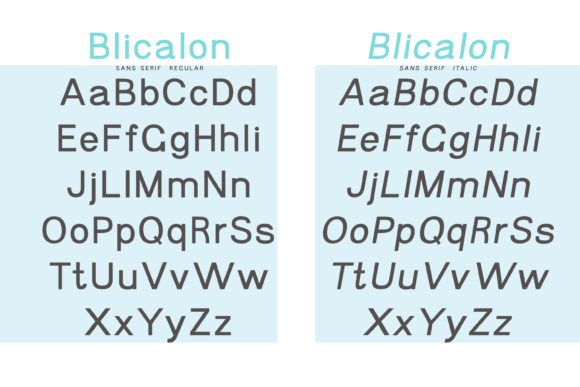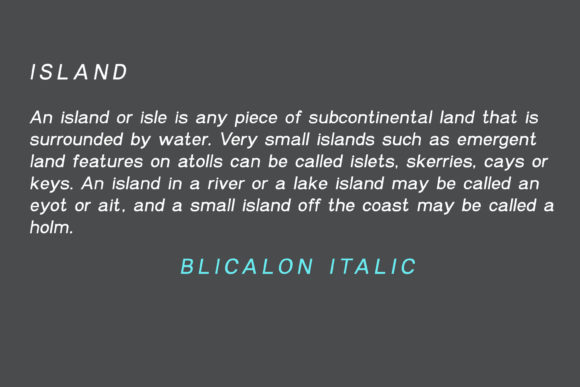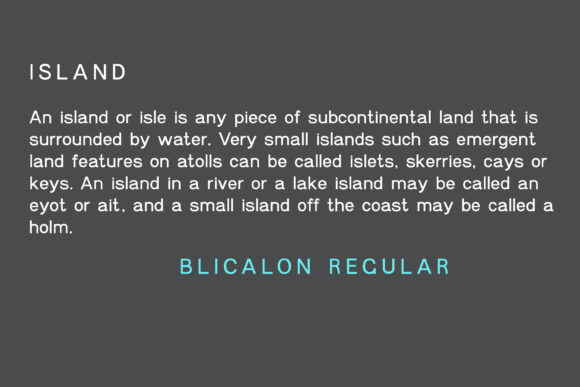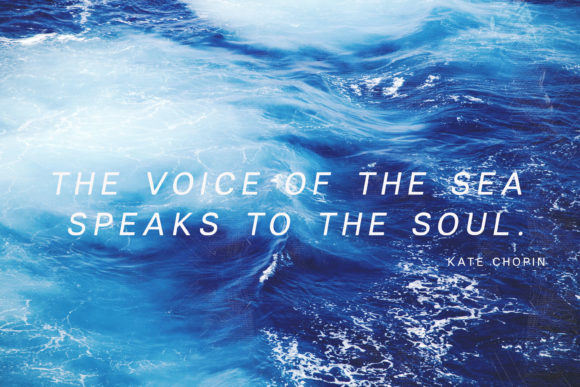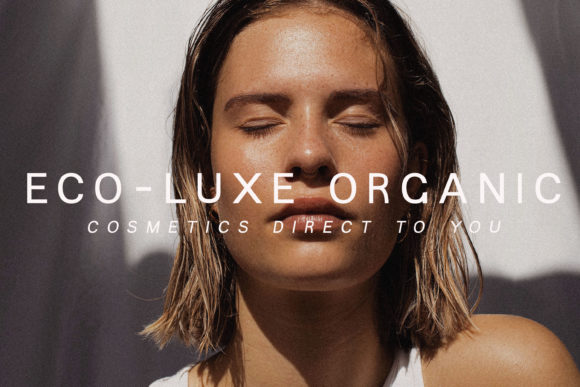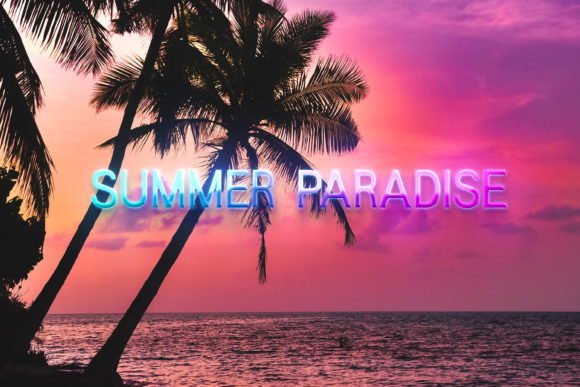
Blicalon Font: The Ultimate Sans Serif for Creative Projects
In the vast world of typography, finding the perfect font for your creative project can be a daunting task. However, if you’re looking for a minimal and neat sans serif font that can elevate your designs, look no further than Blicalon Font. With its clean lines and versatile style, Blicalon is an excellent choice for a wide range of projects, from graphic design to crafting and beyond.
The Characteristics of Blicalon Font
Blicalon Font is a sans serif font, which means it doesn’t have the small lines or flourishes that are commonly found at the ends of letters in serif fonts. This gives Blicalon a modern and streamlined look that’s perfect for designs that need to be clean and straightforward. The font’s minimalistic approach ensures that it can be easily paired with a variety of other design elements without overwhelming them.
Versatility of Blicalon Font
One of the standout features of Blicalon Font is its incredible versatility. Whether you’re working on a branding project, a website design, or even a crafting project, Blicalon can easily be matched to an incredibly large set of projects. Its neat and uncluttered design makes it suitable for:
- Digital displays: Blicalon’s clear and legible design makes it perfect for use on digital screens, from mobile apps to desktop websites.
- Print materials: From business cards to brochures, Blicalon’s crisp lines ensure that your print materials look professional and clean.
- Crafting projects: If you’re a crafter looking for a font to use in your handmade projects, such as journals, planners, or DIY signs, Blicalon’s simple yet charming design is an excellent choice.
Why Choose Blicalon Font?
So, why should you choose Blicalon Font for your next project? Here are a few compelling reasons:
- Easy to read: Blicalon’s sans serif design and clear letterforms make it easy to read, even at small sizes.
- Highly versatile: As mentioned earlier, Blicalon can be used in a wide range of projects, making it a valuable addition to your font library.
- Modern aesthetic: Blicalon’s clean and minimalistic design gives it a modern aesthetic that’s perfect for designs that need to feel contemporary and fresh.
How to Use Blicalon Font Effectively
To get the most out of Blicalon Font, here are a few tips for using it effectively in your designs:
- Pair it with contrasting fonts: Blicalon’s minimalistic design makes it an excellent choice for pairing with more decorative fonts. Try using it as a base font and pairing it with a script or serif font for headings or emphasis.
- Experiment with sizes and colors: Blicalon’s clear design makes it suitable for use at a wide range of sizes and colors. Don’t be afraid to experiment with different sizes and colors to find the look that works best for your project.
- Use it consistently: To create a cohesive look, try using Blicalon consistently throughout your design. This will help to create a sense of continuity and make your design feel more polished.
| Font Name | Blicalon Font |
| Author | Primafox Design |
In conclusion, Blicalon Font is a versatile and modern sans serif font that’s perfect for a wide range of creative projects. Its clean lines, minimalistic design, and ease of readability make it an excellent choice for designers and crafters looking to add a professional touch to their work. Whether you’re working on a digital project or a print material, Blicalon is sure to make your designs stand out. So why not give it a try and see how it can elevate your creative ideas?